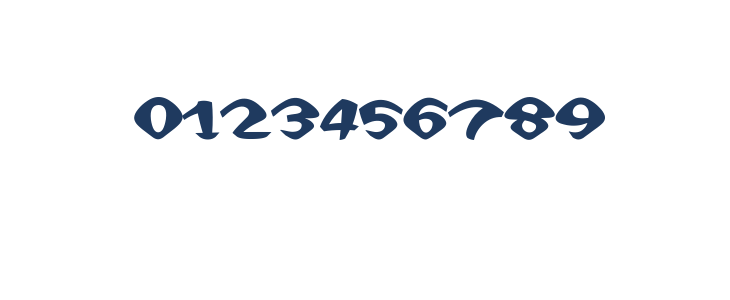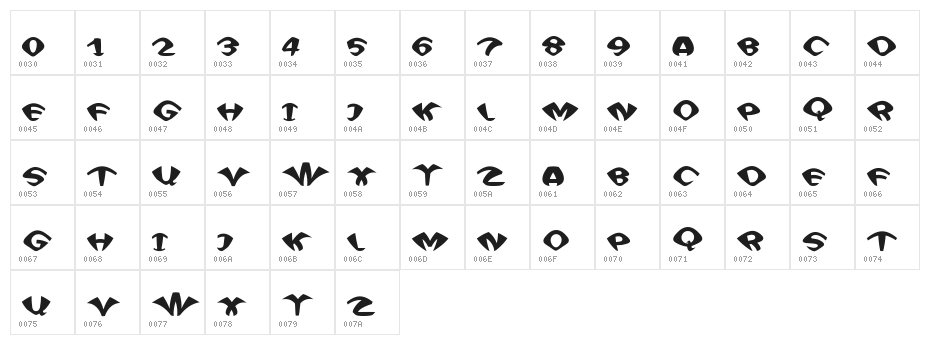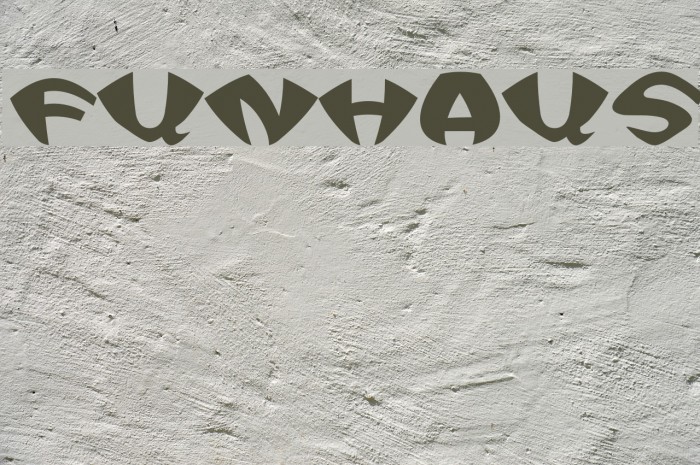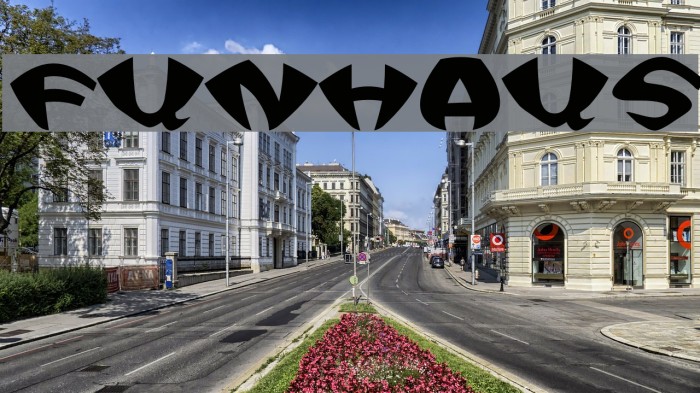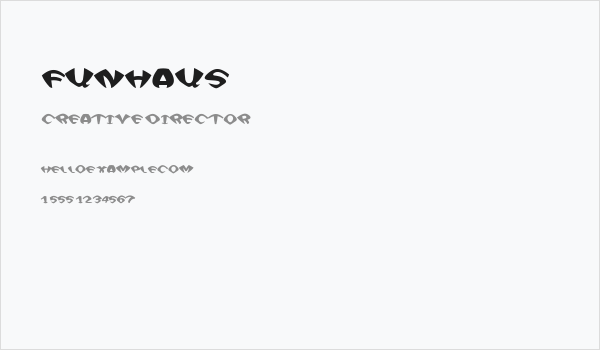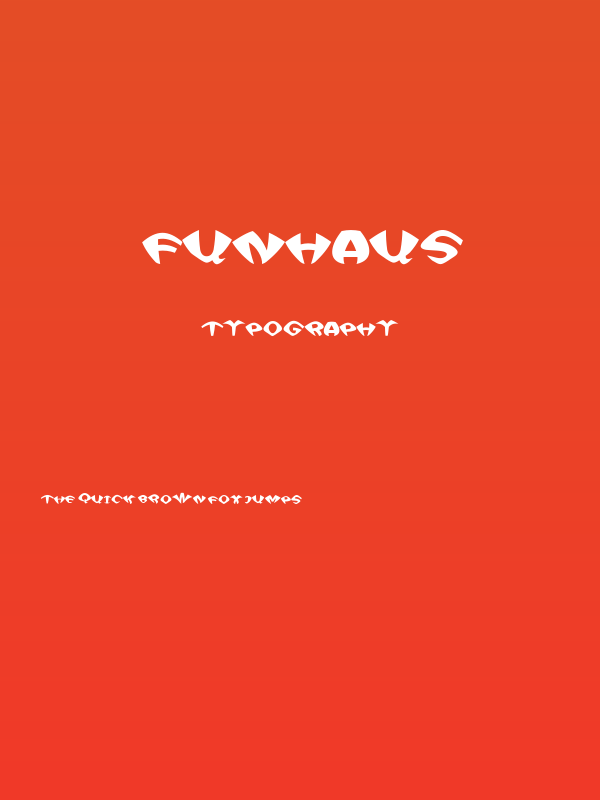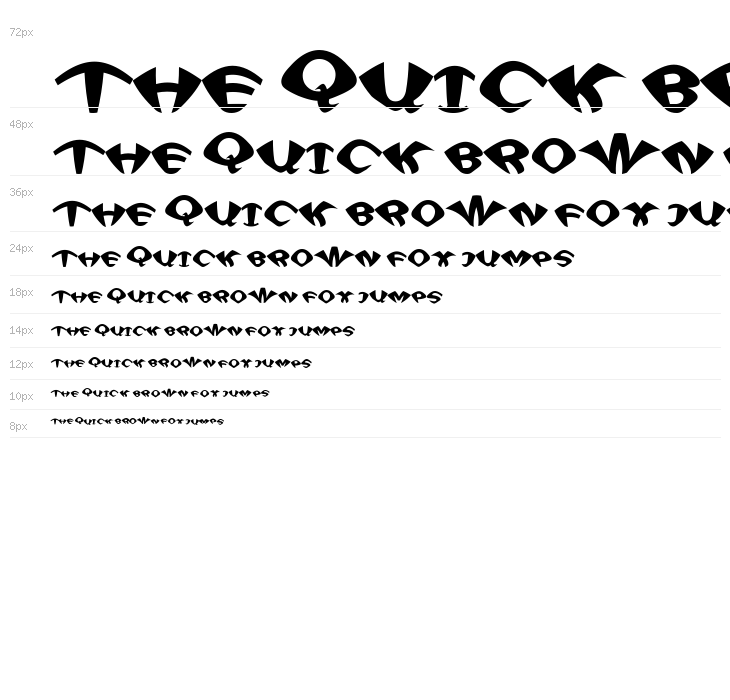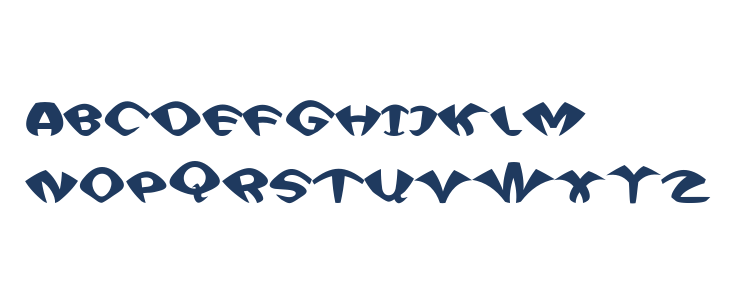
FunHaus Font
FunHaus Description
This font features a bold and playful design, characterized by its unique and exaggerated geometric shapes. The letters are crafted with a sense of whimsy, incorporating sharp angles and curves that create a dynamic and eye-catching appearance. The overall style is reminiscent of a modern, artistic approach, making it stand out with its distinctive personality. Each character is designed with a consistent width, providing a uniform look across the typeface. The numbers and special characters maintain the same playful aesthetic, ensuring a cohesive design throughout.
| Overall Style | Modern, Artistic |
| Use Case | Logos, Posters, Branding |
| Proposed Projects | Ideal for creative projects such as logos, posters, and branding materials that require a bold and artistic touch. |